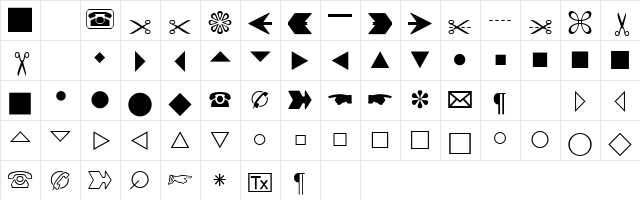
Complete Abacus Three SSi Regular glyph index. Displaying only characters natively supported by Abacus Three SSi Regular font.
Abacus Three SSi is a composed and adaptable typeface that performs quietly and consistently across a wide range of design contexts.